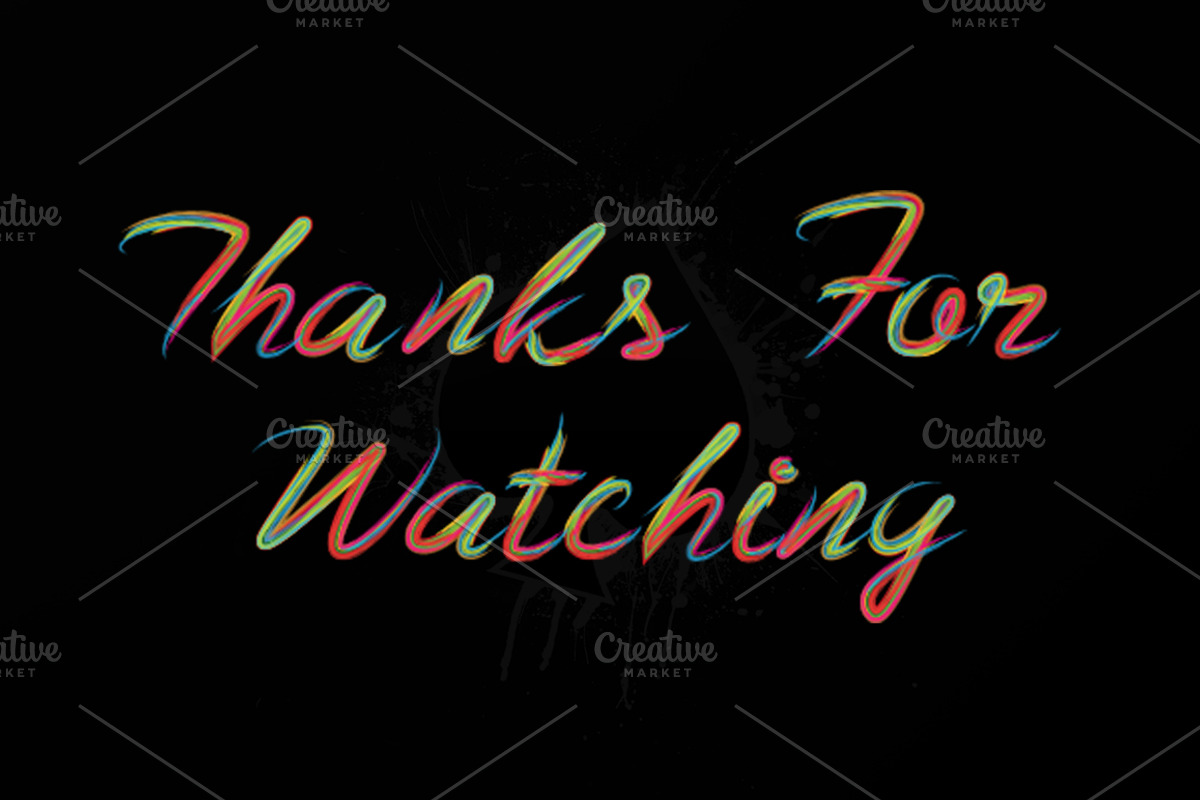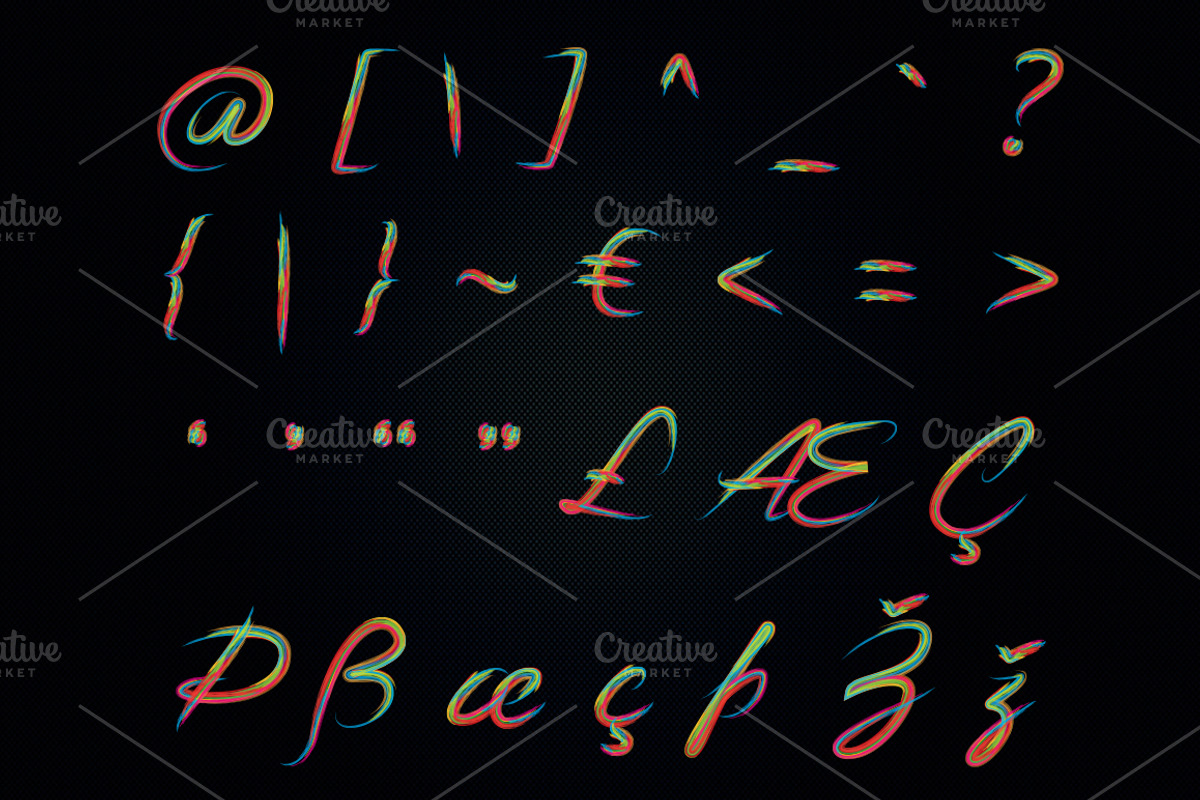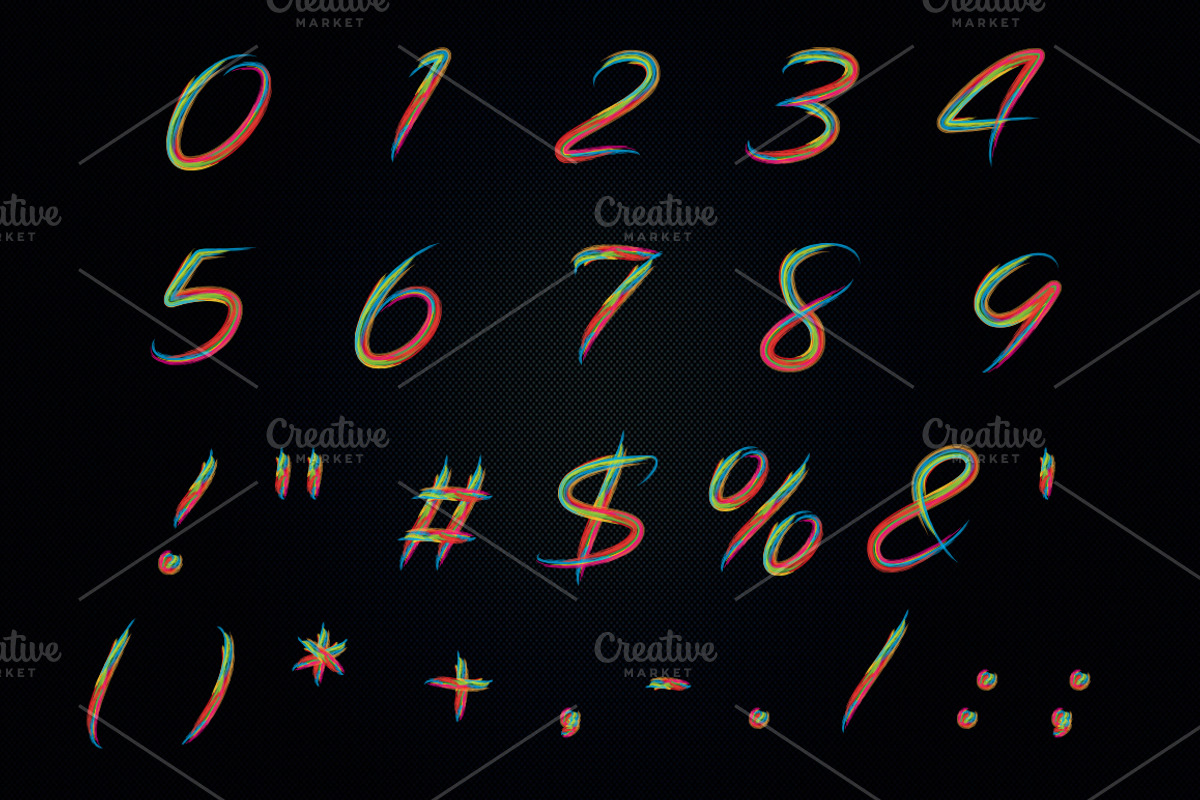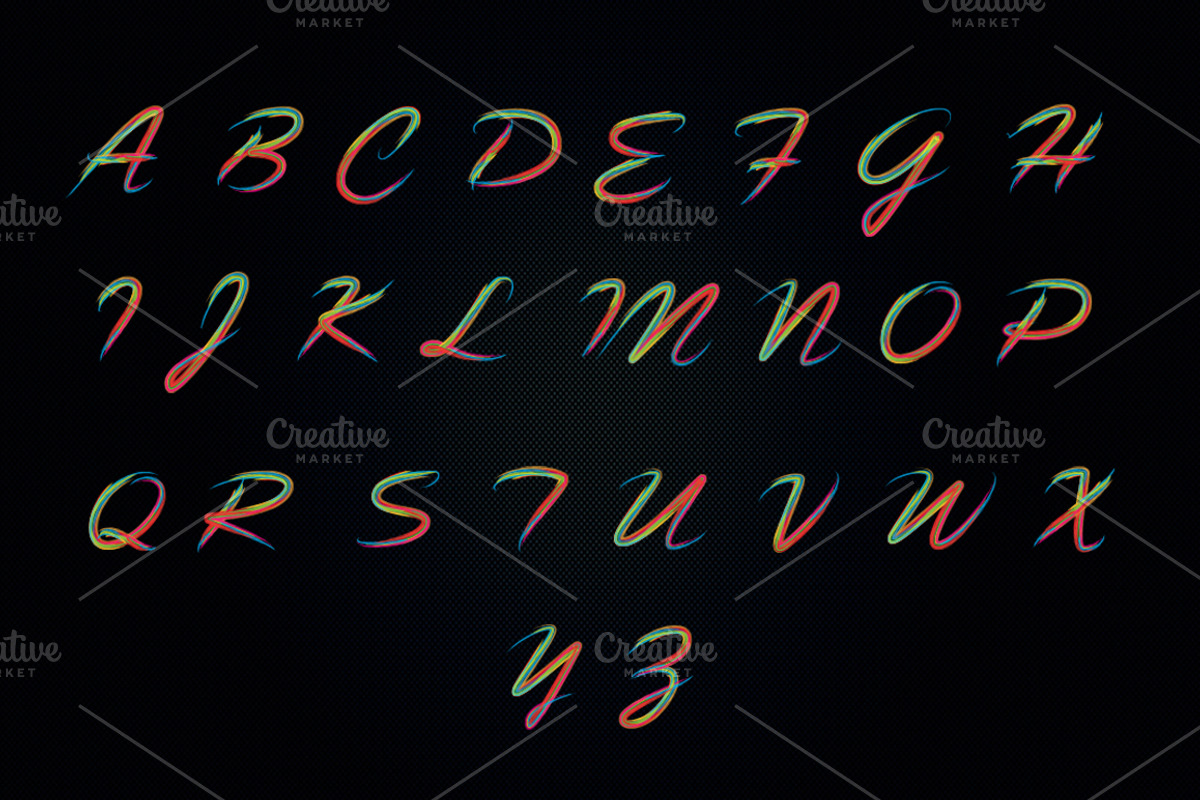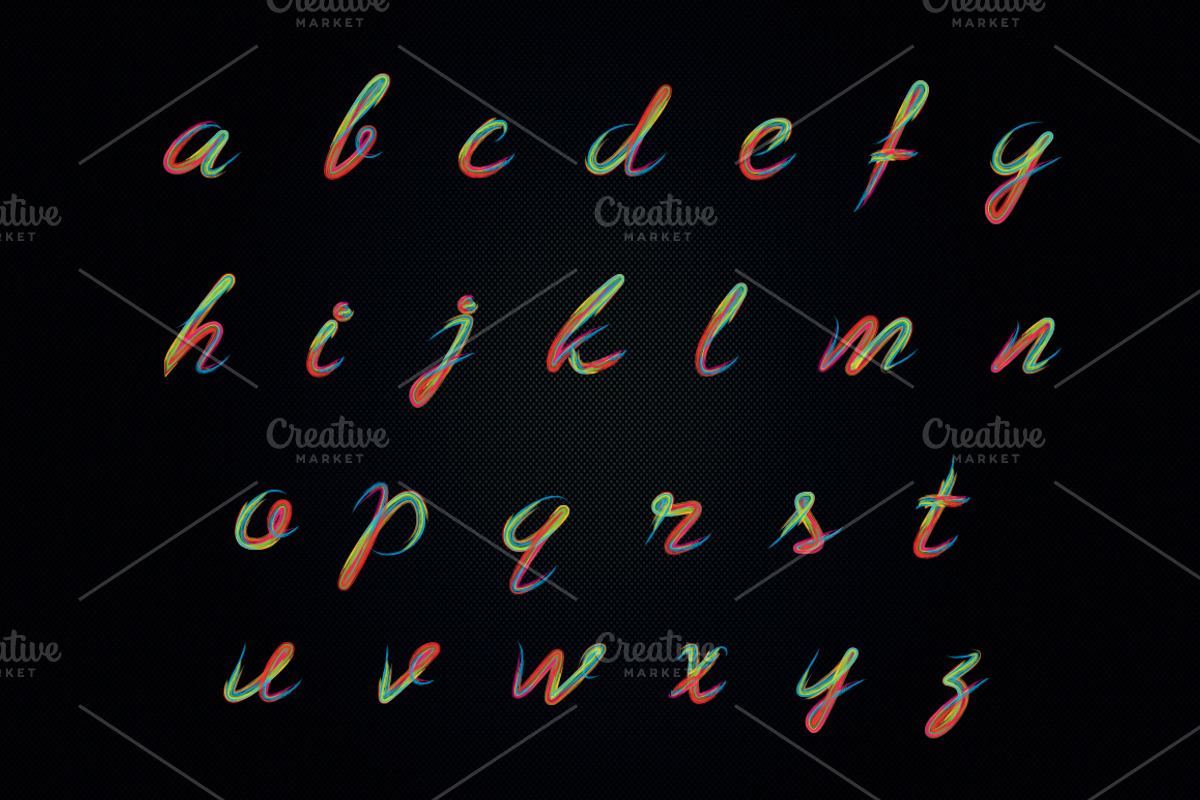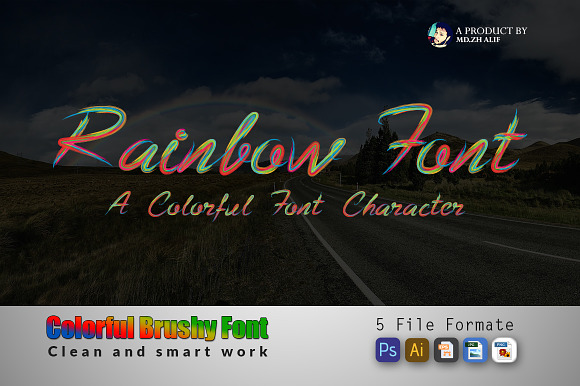
Colorful Brushy Font (Rainbow Font)
This Is Brushy Font (Rainbow Font).
Upper and lowercase Letters
0-9 & Others Windows Letters
Colorful Brushy Font (Rainbow Font) by zahidhossainalif fits naturally into Branding, posters, packaging, typography.